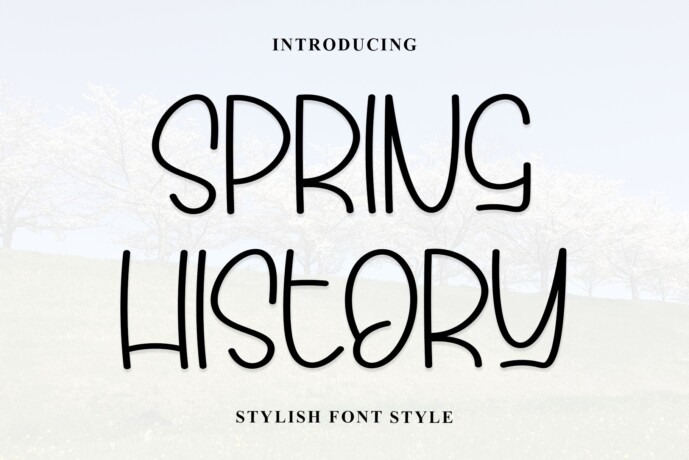
Spring History Font
Designer: Creatype Designer
Spring History is a cute, bold display font. Add this bold font to your design and watch how it brings it to life. Get inspired by her unique and beautiful style and add it to your favorite designs!